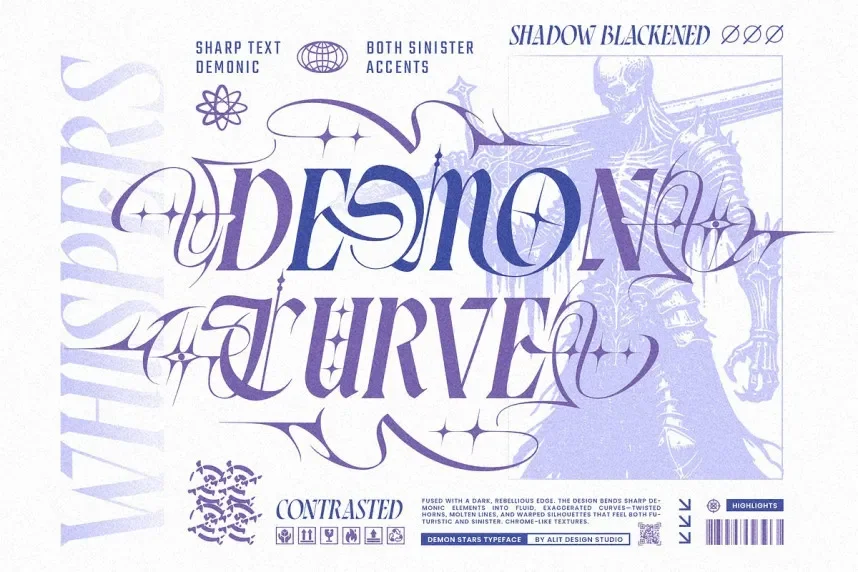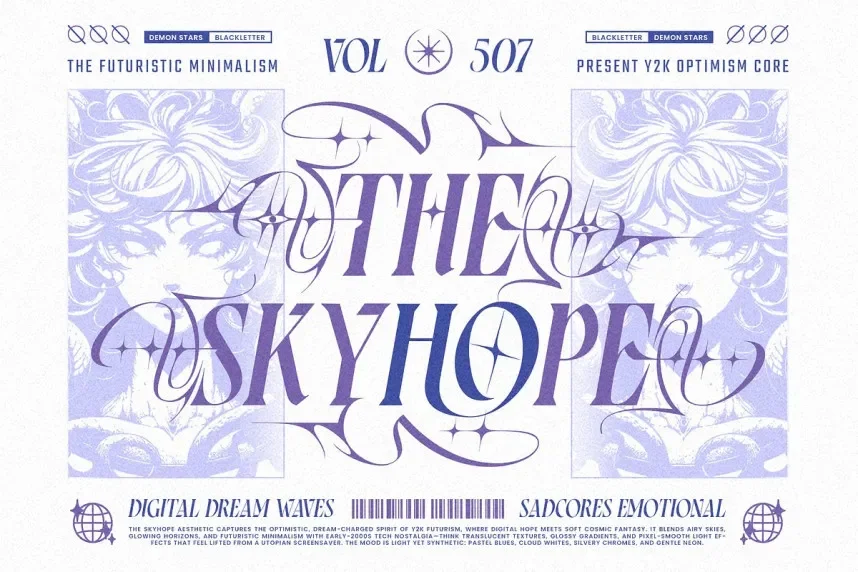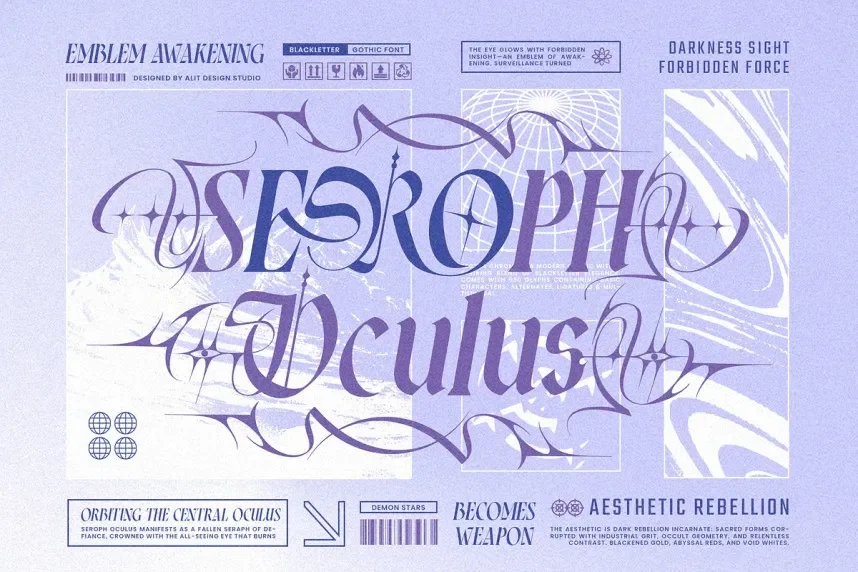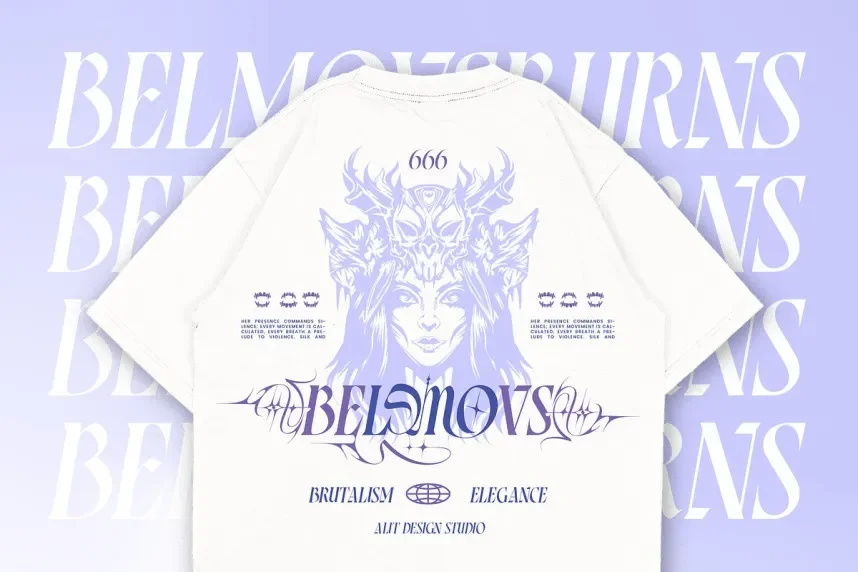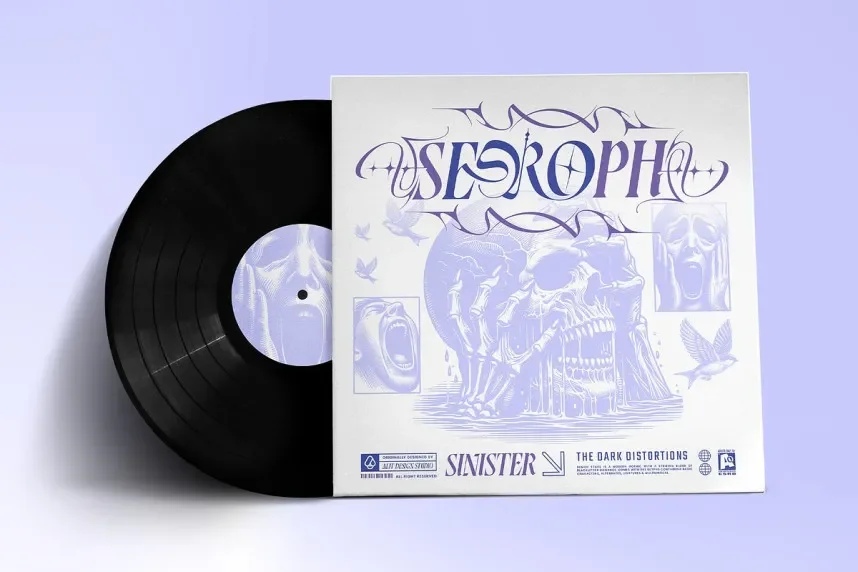
Demon Stars Font is a decorative display typeface designed for high-impact visual projects. Designers often need themed fonts that remain readable without losing character. Demon Stars balances decorative elements with structured letterforms.
This font belongs to the display category with stylized details. Its letterforms include sharp edges, angular strokes, and controlled spacing. Despite its bold appearance, the characters remain clear at medium and large sizes. Stroke weight stays consistent, which improves legibility across digital and print formats.
Demon Stars is suitable for posters, event branding, album artwork, gaming visuals, and themed merchandise. It works best for short text such as titles and logos. Pairing it with a clean sans-serif font helps balance complex layouts.